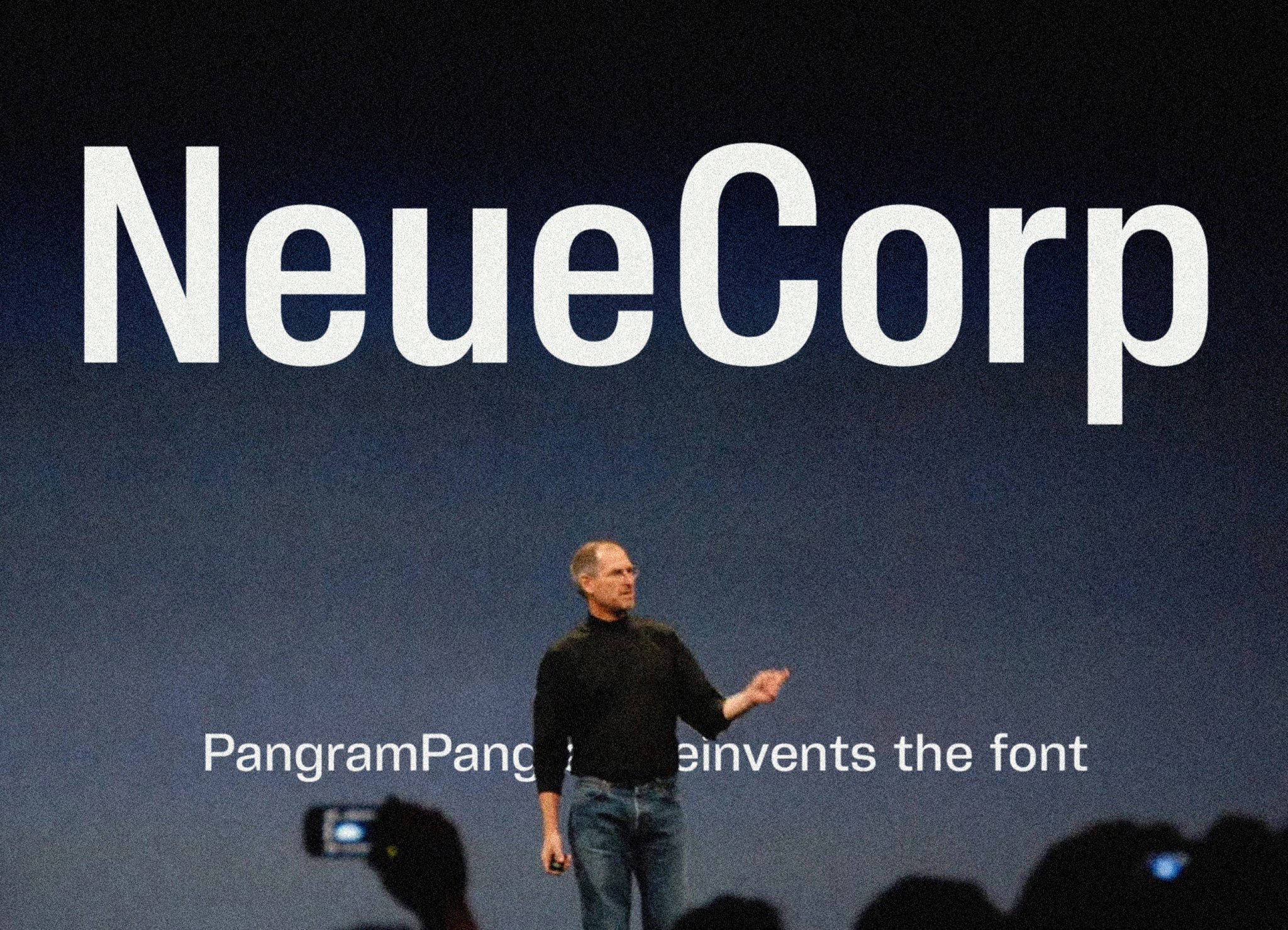
We’re incredibly excited to introduce you to the latest addition to the PP family, Neue Corp.
From the mind of new Pangram collaborator, Maksym Kobuzan, Neue Corp is destined to become a staple in any creative’s toolkit – embodying meticulous craftsmanship and versatility. Bridging the eccentric charm of old wood type with the sleek precision of neo-grotesques, Neue Corp brings together an eclectic mix of influences to create something altogether fresh and freeing.
Contextual in nature, Neue Corp takes inspiration from iconic typefaces but reimagines them within a contemporary typographic landscape, with its Black and Condensed styles channelling the classic aesthetic of Hamilton Mfg. Co. typefaces, while the wider Bolds are reminiscent of Helvetica Extended. Meanwhile, the Regular styles borrow from Univers, softening some details to bring a friendlier, warm tone to the mix. This interplay of elements culminates in a type family that feels both familiar and brand new, balancing character with neutrality in a way that makes it suitable for almost any design application.
Not to go on, but the flexibility doesn’t stop there. With alternate stylistic sets,Neue Corp can shift its tone even further, with some sets leaning into clean, geometric forms while the others add bold spurs for a punchy, grotesque personality. At the end of the day, it’s a typeface that fosters experimentation, letting creatives dial-up or tone down the character as needed. And, with 80 styles across eight families, it offers a spectrum from modest Thin to vital Black weights, and from narrow Compressed to expansive Extended, complete with Cyrillic support and 1,049 glyphs per style.
Getting into the nitty-gritty, we delve into the creative journey behind Neue Corp with Maksym, exploring the inspirations, challenges, and aspirations that shaped this striking new addition to Pangram Pangram’s catalogue.
Hi, nice to meet you. I’m doing relatively well; right now, there’s an air raid alarm in Kyiv, so things could definitely be better. Here’s an interesting fact about Neue Corp right from the start: no less than a third of the entire typeface was made in the hallway, bathroom, or bomb shelter with a laptop in hand. Pretty much the same way I’m answering your questions right now. :)
What’s your journey into type design? Did you always want to get into the field?
I didn’t always want to design typefaces. I just wasn’t always aware of their existence, haha. Somewhere in the middle of my studies at the academy, I started to enjoy designing letters. So I gradually began to learn it on my own, since there isn’t really any formal type design education here. I used everything I could: books, manuals, and copying classic specimens. Sometimes, I sought advice from different type designers. But I really started working on typefaces full-time around 2021. From there, I slowly started collaborating with various foundries and marketplaces. Just recently, I released a typeface with Blaze Type.
Tell us about the origins of Neue Corp! With so many typefaces out there, where did the idea for Neue Corp come from? Was there a gap you were looking to fill?
I was inspired by well-known brands and wanted to create something ultimate and universal that would match those brands. From the very start of my work on typefaces, I always had the idea to try and create a massive type family with a maximum and logical range of weights and widths, so designers would have plenty of options. I also wanted to see the typeface used in Ukraine, in my hometown, so it had to support Cyrillic.
Honestly, I think it was also a challenge for me. I had attempted to make a similar typeface a few years ago, but… nothing came of it. So I scaled the typeface down and released it. However, with each passing year, I saw more and more issues with it. So a few years later, I decided it was time to do what I had originally planned, but in full.
You’ve blended some interesting influences here – combining elements of old wood type with the precision of neo-grotesques – how did you go about weaving these different influences together into a cohesive design?
Essentially, it was an attempt to merge two extremes, find a balance, and choose the best elements. Initially, I roughly outlined which expressive features would suit Neue Corp.
You’ve cited classic Hamilton Mfg. Co. typefaces and Helvetica Extended as influences for the Black and Bold styles. What drew you to these particular references, and how did they shape Neue Corp?
I needed a reference point, so I looked at classic examples. Even though this typeface was intended to be the ultimate workhorse, the goal was still not to make it completely bland or neutral. So I picked what best suited my task and vision. Take wood type, for example. They have incredible black styles. With some added thickness, they were a perfect fit for my radical black style, with its minimal counter forms. And Helvetica Extended had an excellent combination of contrast and spacing between letters.
There’s a certain duality in Neue Corp’s stylistic sets. How did you approach designing alternate sets that toggle between geometric and grotesque? Was this always part of the plan, or did it emerge as the typeface evolved?
That was always part of the plan for achieving true versatility. It’s basically three different typefaces in one! I love creating alternate characters, but this time I decided to prepare specific sets. I think the geometric set is pretty straightforward – many of the forms are simplified. The grotesque set adds spurs to various letters, bringing it closer to eccentric old grotesques. And, just to make sure there’s plenty to work with, haha, you can also enable a set with round dots or alternative arrows.
You’ve modernised elements from Univers and others, softening certain details. How did you balance staying true to these classic inspirations while giving Neue Corp a fresh, contemporary feel?
I think those classic sources still look fresh today, so it wasn’t difficult, haha. I just tried to piece it all together like a puzzle, to form a complete picture that matched my vision.
With everything from Thin to Black and Compressed to Extended, Neue Corp spans quite a range. What were the biggest challenges in keeping the family unified while allowing each style its own character?
Oh, there were plenty of challenges. The working title for Neue Corp was “Cycle.” I thought that this time I’d do everything properly, without revisions. Yeah, right. No other typeface of mine has been reworked as many times as Neue Corp. At some point, it felt like I was stuck in a cycle that kept repeating over and over. Keeping everything in a consistent style wasn’t easy, so I constantly had to compare and cross-check all the styles simultaneously.
Another issue was achieving clean interpolation, so the initial version of Neue Corp had a limited set of characters for testing. And, of course, the iterative development process I mentioned earlier played a big role
With 1,049 glyphs, Neue Corp offers extensive language support (which is no small feat). How did you handle that? What was your process for ensuring consistency and usability across multiple scripts?
The large number of characters is mainly due to the abundance of alternate characters in Neue Corp. In general, this typeface took a lot of time because of the sheer number of glyphs, not to mention the many styles. It was important to me to create a good Cyrillic set, so I worked on it in parallel with the Latin characters. This approach, in one way or another, influenced the visual appearance of all the letters.
What’s on the horizon for Neue Corp? Do you foresee any future expansions or updates? What directions might you consider exploring next?
I think Neue Corp has a bright future. If all goes well and I can continue working on typefaces, I definitely plan to expand it. I’m definitely planning to work on text styles and also on italics. Italics are a bit intimidating because of the workload, but I think I can handle it.